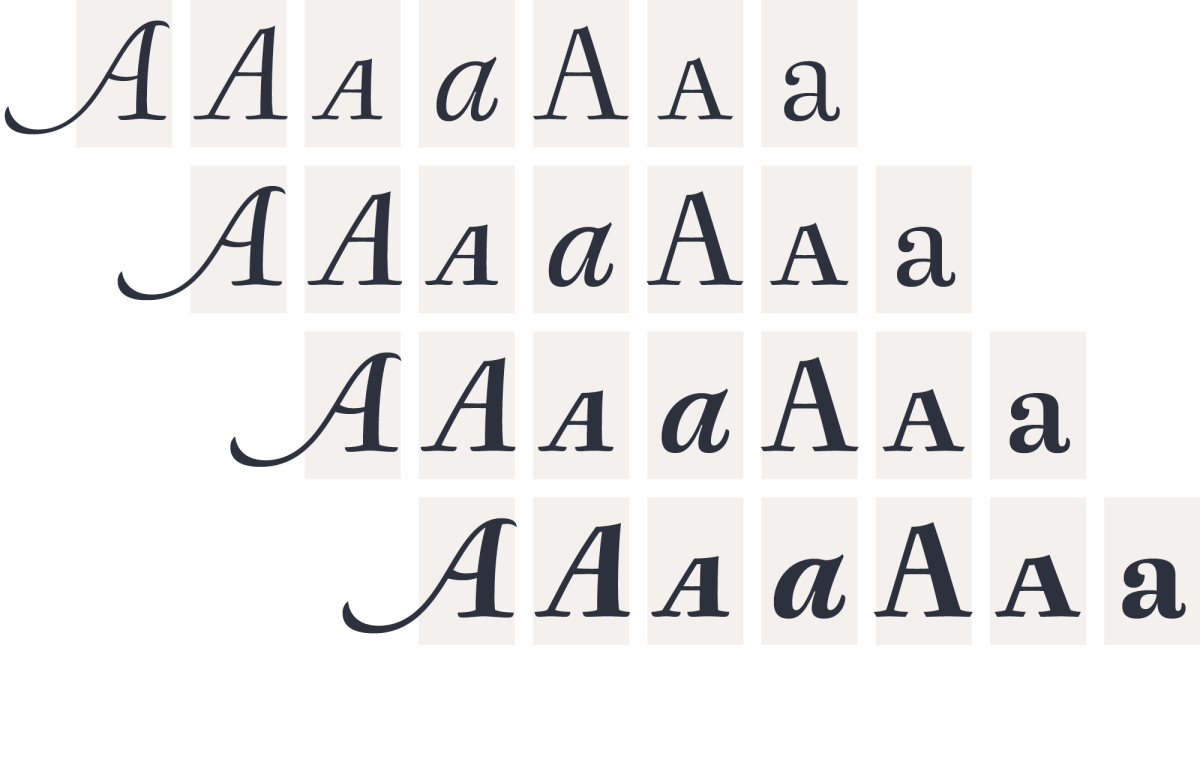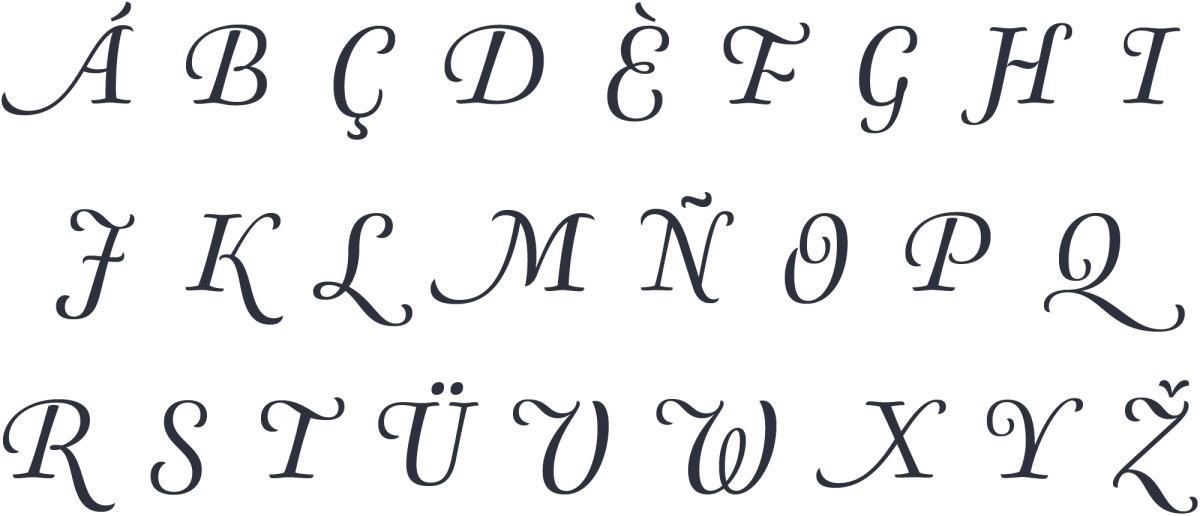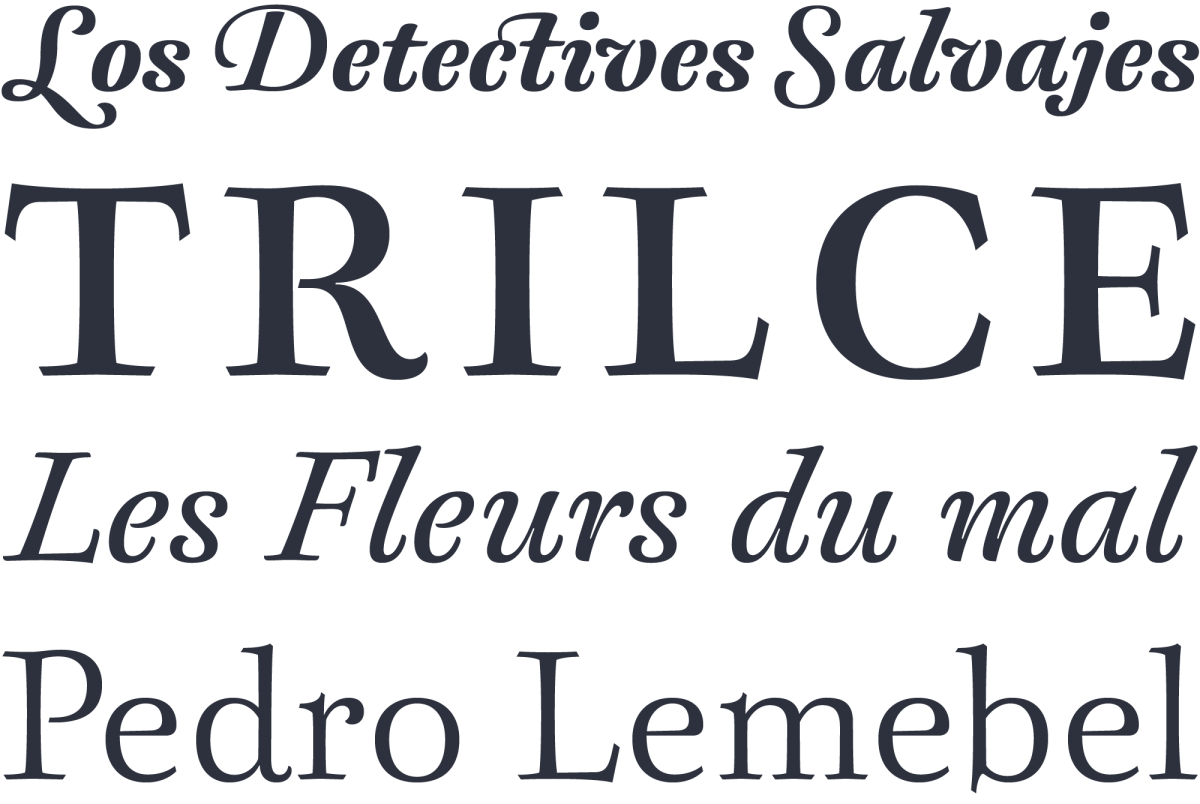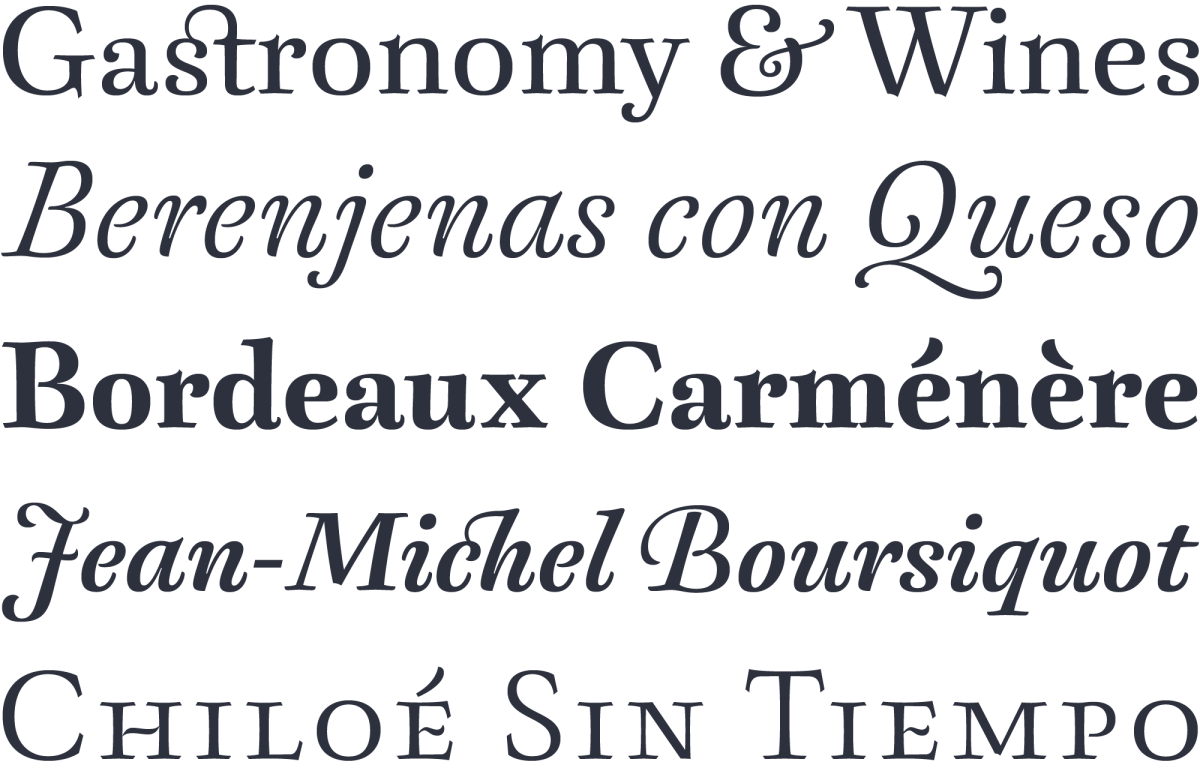
Berenjena. A text typeface of delicate spiciness
When composing literary texts, you need the right combination of comfort in reading and a lyric spirit. This helps keep readers in the delicate atmosphere in which novels and tales can display all their charm. Meet Berenjena, a typeface that will give your text a slightly spicy atmosphere. Most typefaces created for books cannot reach a good balance between legibility and expression. Either they are too expressive so they tire the eyes of the reader, or they are dull and reading becomes a tedious task. Chilean type designer Javier Quintana Godoy created the text typeface Berenjena bearing in mind this idea of subtle balance. Berenjena (Spanish for aubergine or eggplant) gives your text that spicy environment in which wordshapes are easy to read while letterforms maintain their capricious feeling. It comes in roman and cursive, both with smallcaps, all declined in four weights.
Berenjena includes all the usual OT contextual sorts plus several elegant ligatures, wonderful swashes, all sorts of figures, and more. Berenjena will help you create a unique atmosphere, giving your designs a strongly individual character.
Neoclassical inspiration
ITC New Baskerville by J. Quaranda
Baskerville Ten Pro by F. Štorm
Berenjena by J. Quintana
The letterforms of Berenjena link to the Neoclassical style of middle 18th century, in particular to the work of English calligrapher & printer John Baskerville. However Javier Quintana didn’t intend to make a historical interpretation, as František Štorm did with his wonderful Baskerville Ten Pro type. Javier wanted to recreate Baskerville’s fine sense of politeness into a new, contemporary design that could built a more serene rhythm, flowing & tender.
The influence of vernacular lettering & street sign paining
Even within its Neo Classical style Berenjena succeeds in exploring expressive details that can be seen in some streets signs in Santiago de Chile. Most of those signs are made by self-taught letter artists who usually work far from the strict conventions of formal calligraphy. The challenge while designing Berenjena was creating a good type for immersive reading, while some details refer to that manual freedom in vernacular street signs.
Detail of Montoni’s signpaiting work.
Nicolo Montoni working in his atelier.
A nice sample of current vernacular lettering is the work of Nicolo Montoni, a letter artist from Santiago town center. He’s been painting letter signs for more than 50 years. Don Nicolo is also a skilled illustrator so he can draw a good variety of letter designs, some of them pretty ornamented. Certain ending strokes & details in Nicolo’s letters are the result of a classic idea on how to trace a letter with a brush, which has been in turn inspiration for some details in Berenjena.
Pleasant marriage of legibility & flair
This subtle influence can be seen in diverse glyphs of Berenjena, and particulary in its beautiful caps italics swashes.
A versatile type family
Berenjena’s poetic atmosphere encourages its use in literary texts, either immersed & profound, or incidental & casual. However its friendly letterforms are also appropriate for delicate ephemera such packs & labels of the food industry & wines!